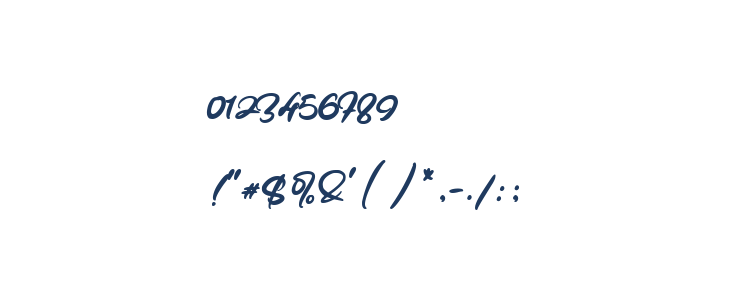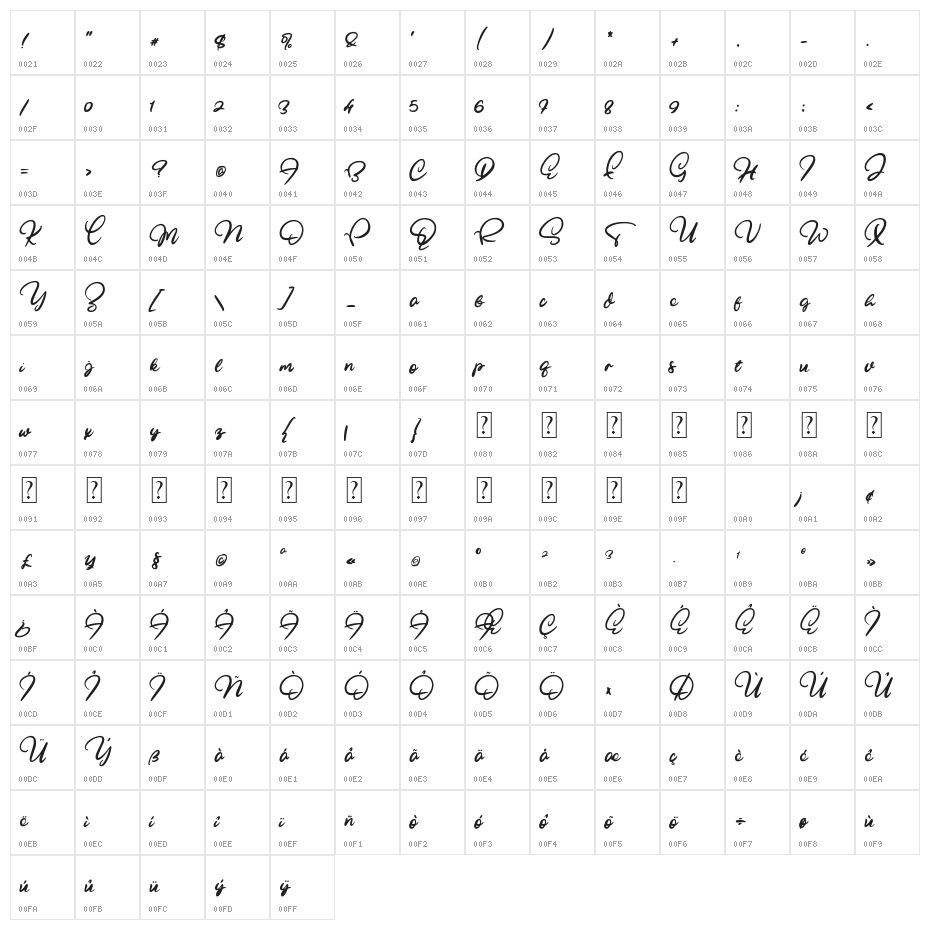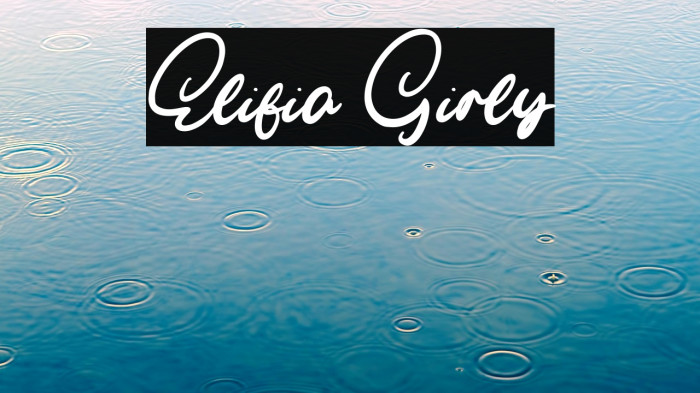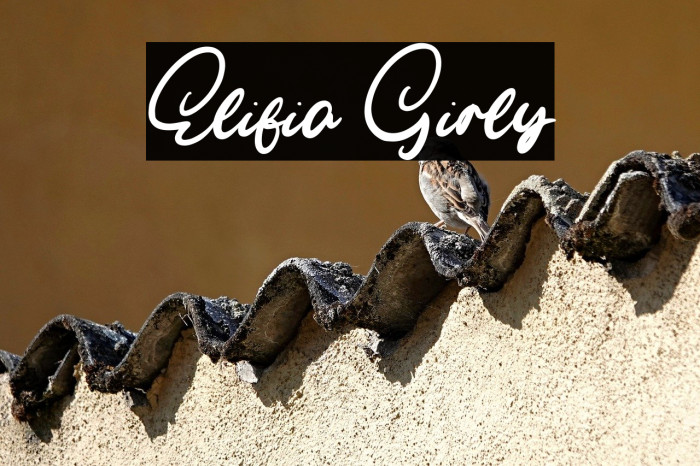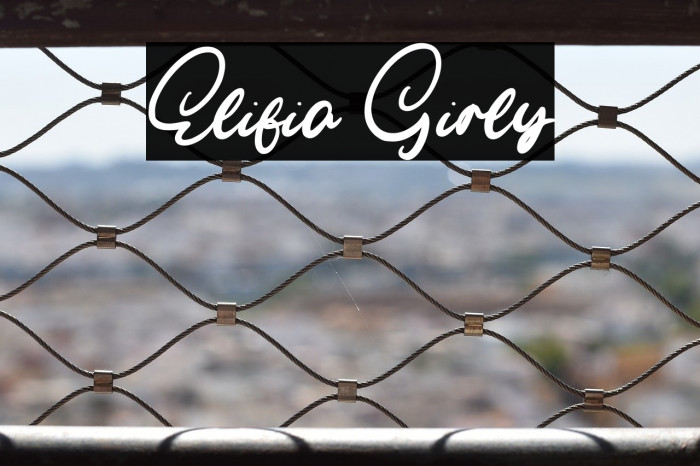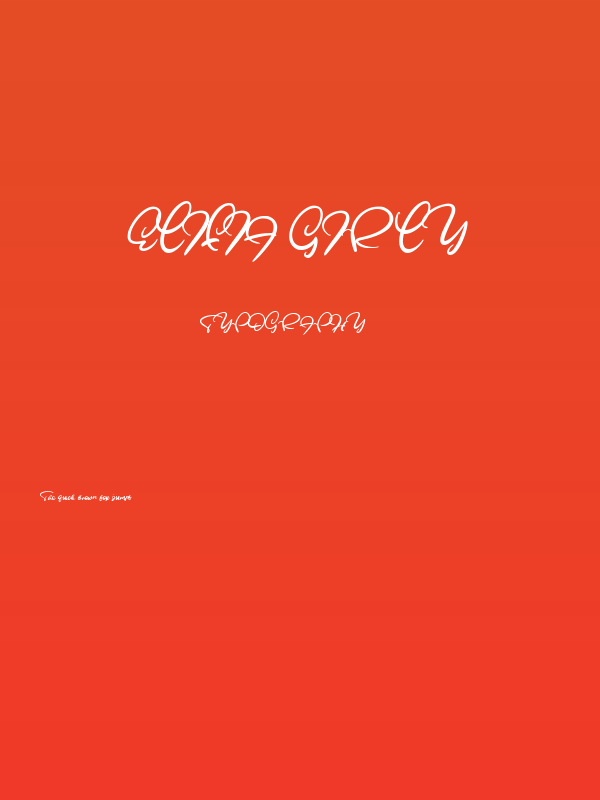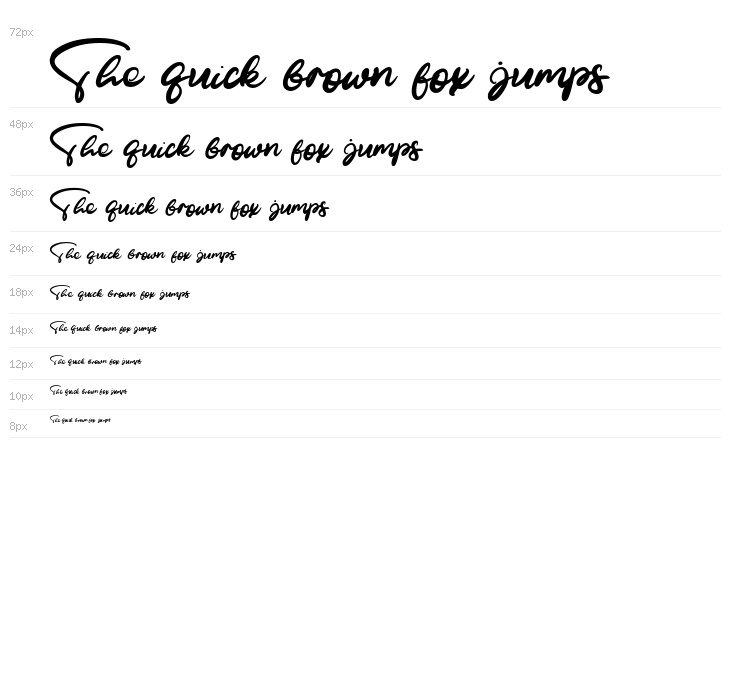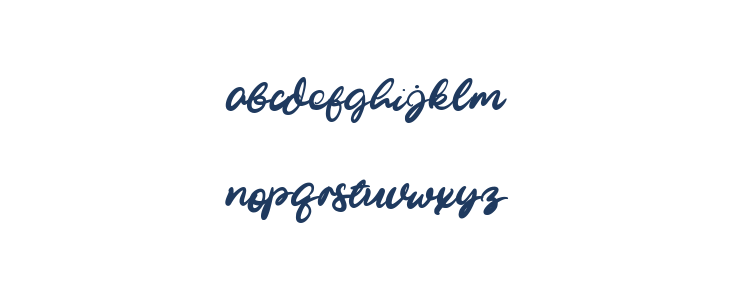
Elifia Girly Font
Elifia Girly Description
This font exudes a playful and elegant script style, characterized by its fluid, cursive strokes and a sense of movement. The uppercase letters are ornate and flowing, with a distinctive flair that adds a touch of sophistication. The lowercase letters maintain a consistent rhythm, enhancing readability while preserving the font's decorative nature. Numbers and special characters are designed to complement the overall style, ensuring a cohesive look across all text elements. This font is ideal for projects that require a personal touch, such as invitations, greeting cards, and branding materials.